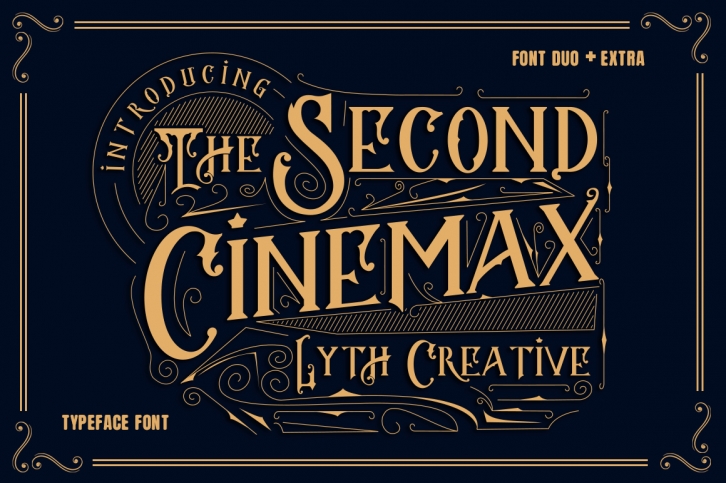
The Second Cinemax is a beautiful font that was designed by Lyth Creative. It's a great choice for designers and creatives who need such a font. It was released on May 21, 2019 and the file size is 1.27 MB. The Second Cinemax may give a more youthful, expressive and casual look to your project. It is a very beautiful, refined, elegant, and high-quality font.